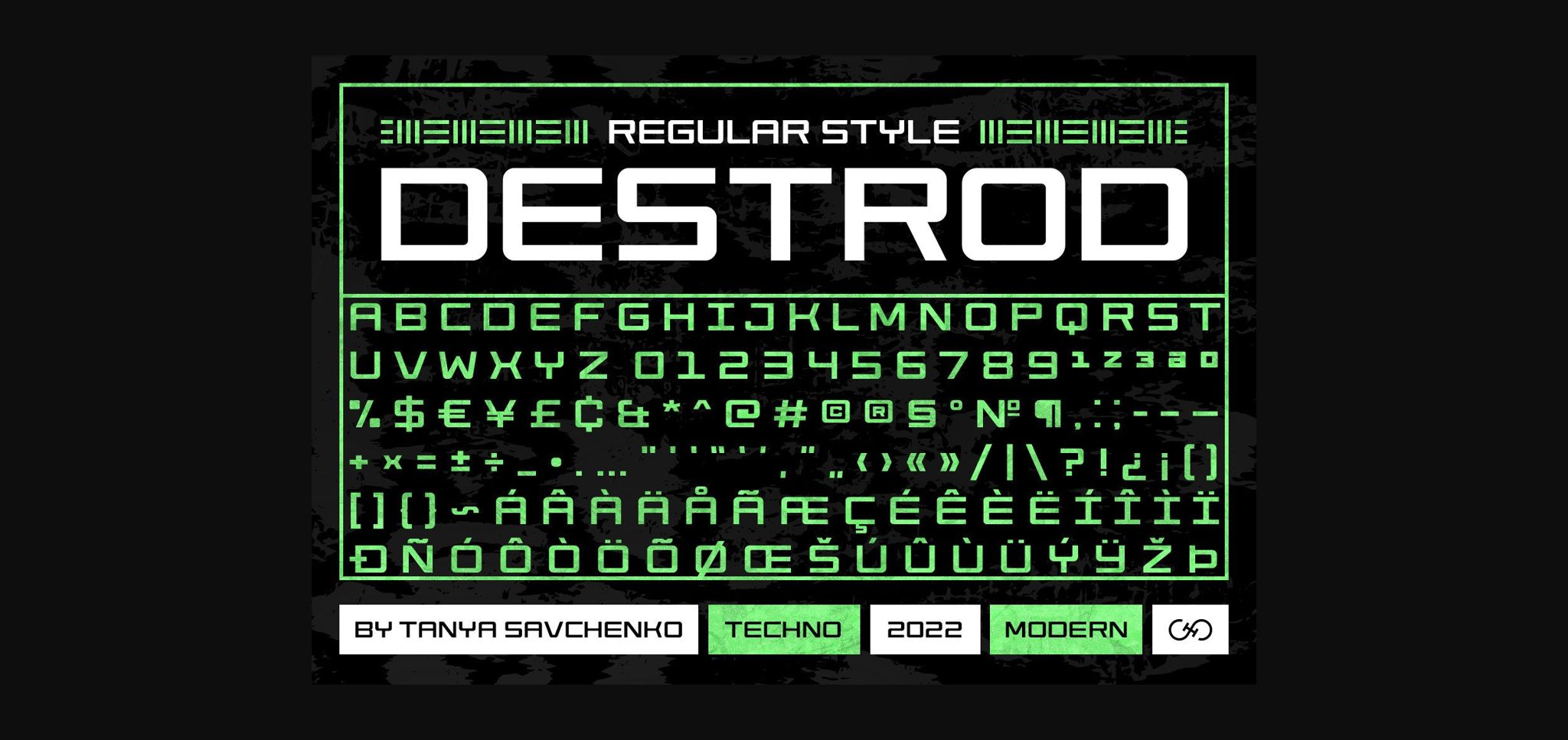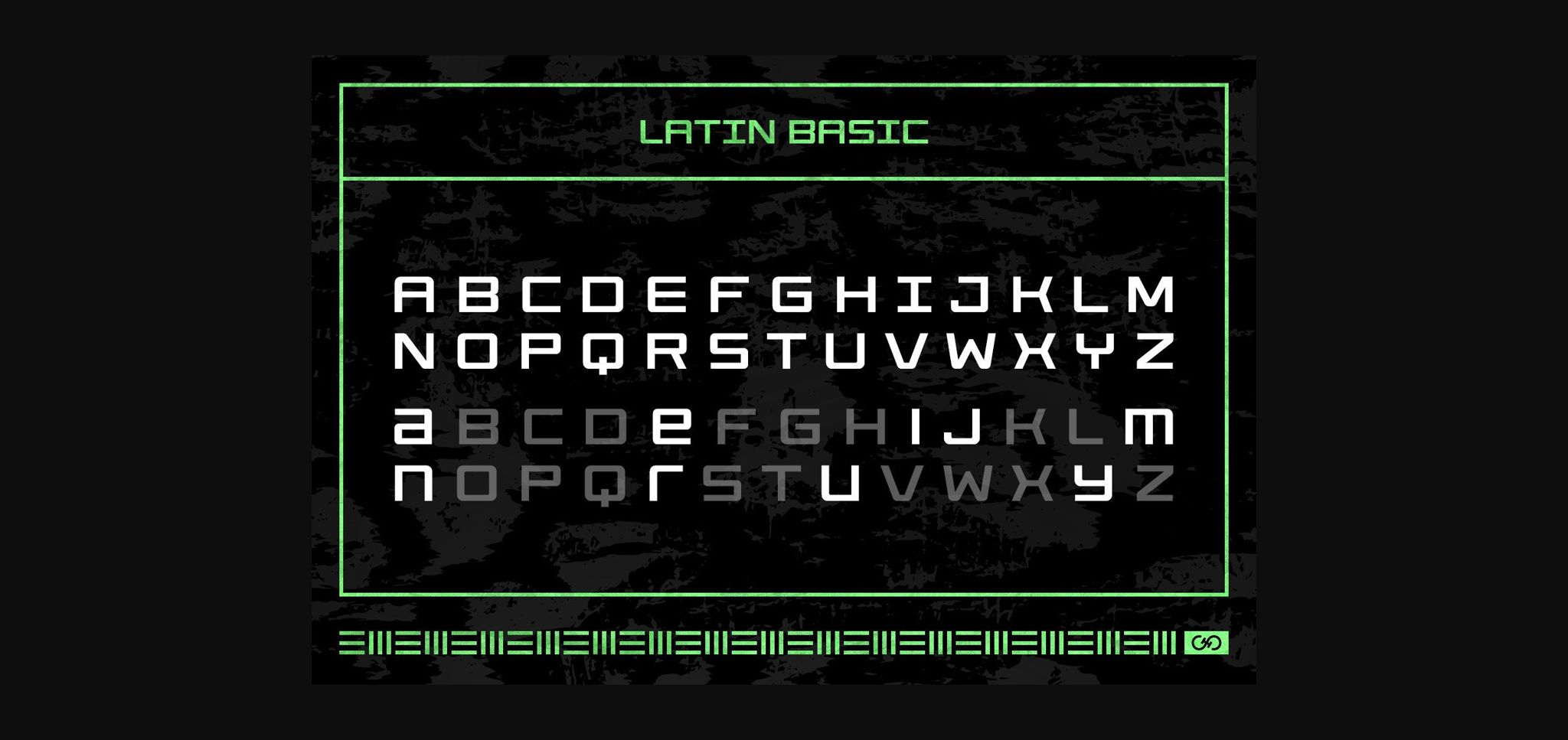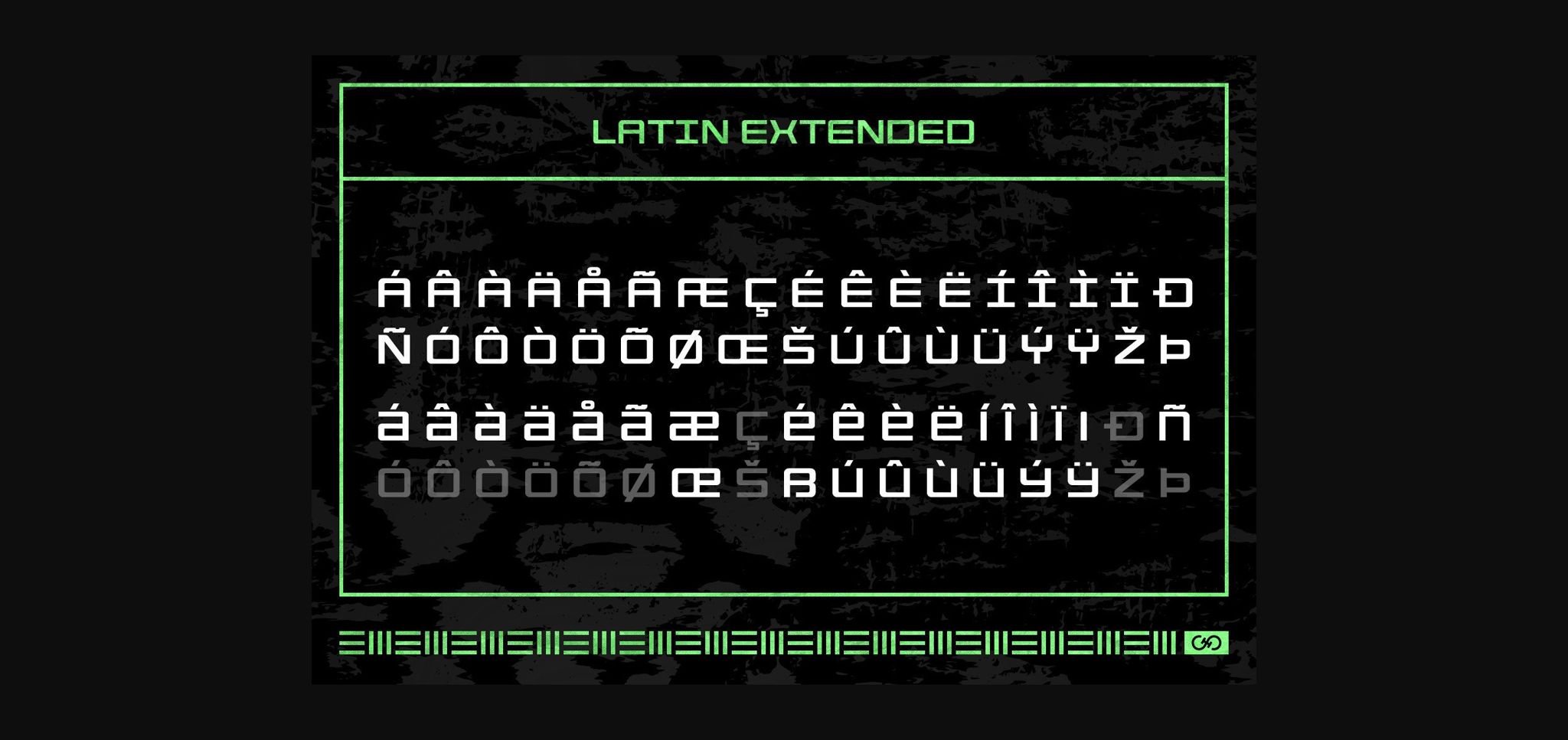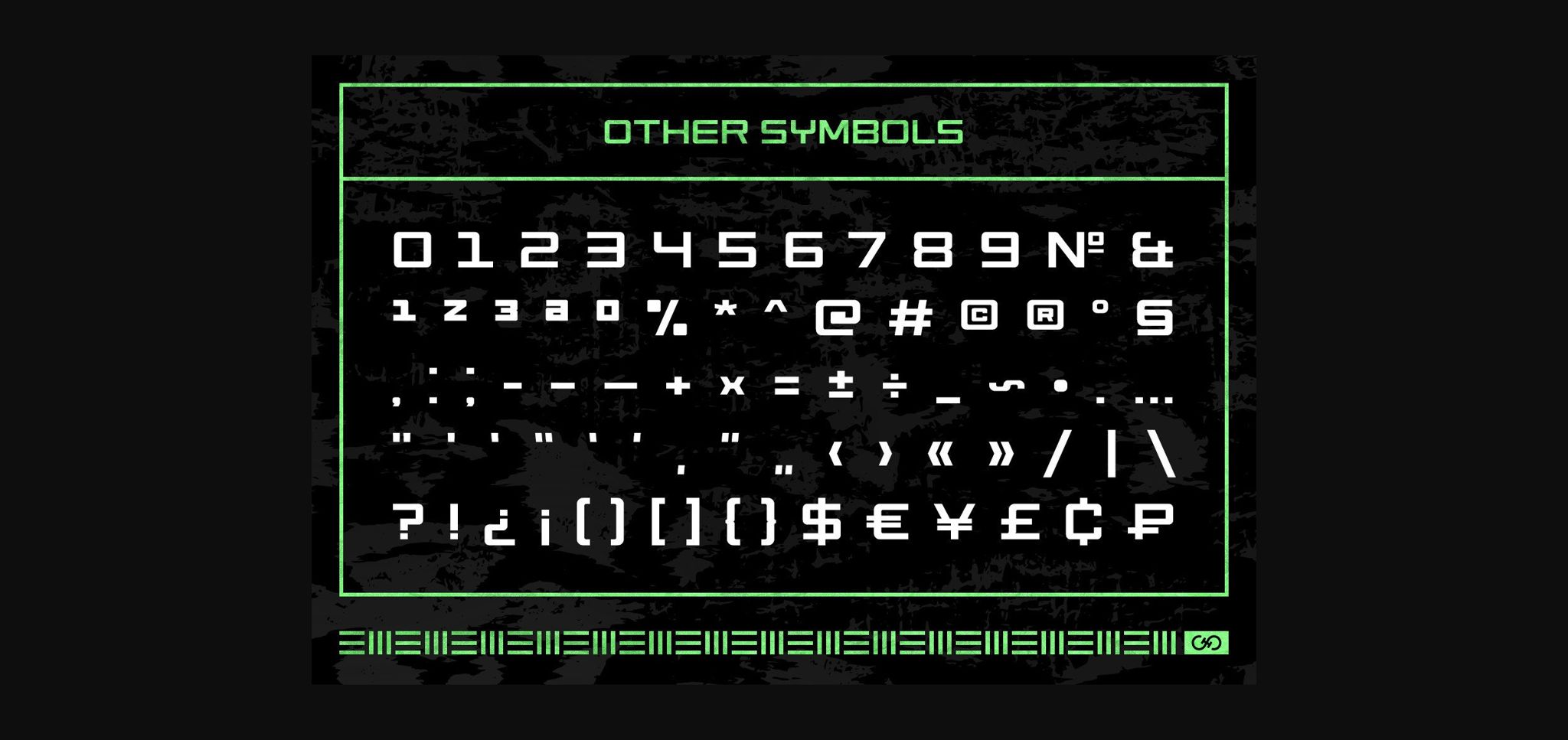
Destrod Font
About Destrod Font
Destrod is a modern techno sans serif font. Its futuristic and minimalist style makes it incredibly suitable for all your projects that need a sci-fi touch.